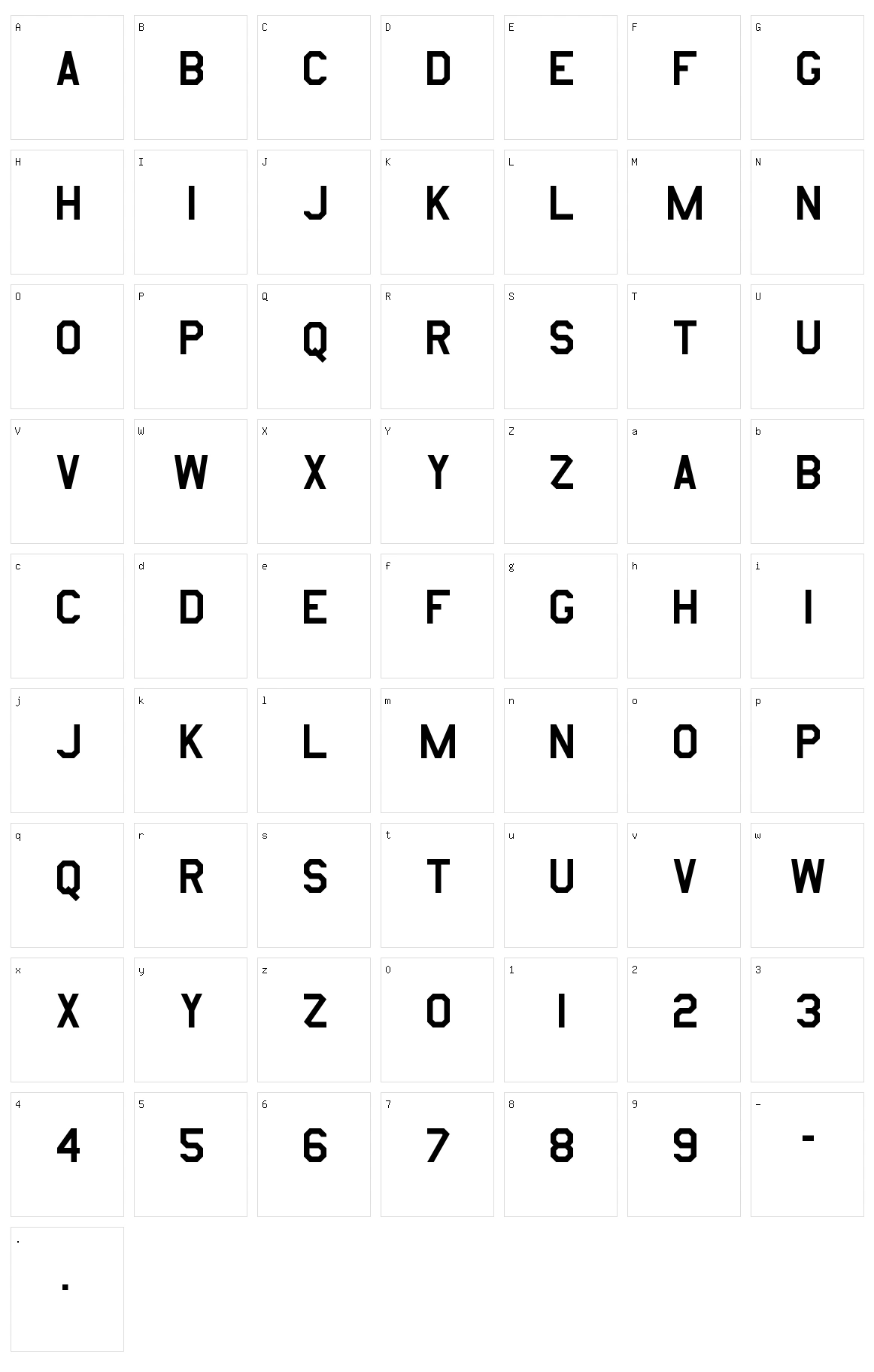
Amarillo USAF (30-day Trial)
What is Amarillo USAF?
Amarillo USAF is an aircraft marking font that duplicates the lettering
specification used for current US Air Force aircraft. You can find this
style of lettering on US military aircraft dating back to WWII, on both
Navy and Army/Air Force planes and helicopters. Some modelers have used it
to add N-numbers to reproductions of civilian aircraft. With this font,
you can create authentic decals for scale models, make vinyl lettering for
movie and television props, and accurately reproduce markings on 3D modeled